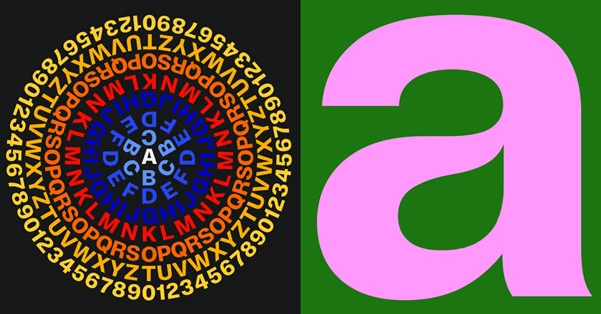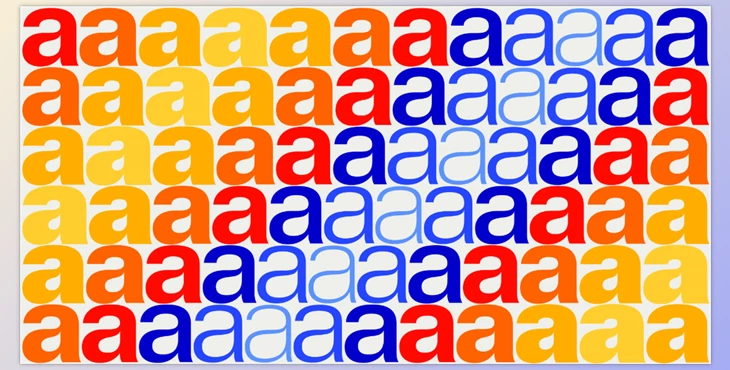
Hot Type - Exat Font Family:
The Exat typeface captures the essence of modern design with its bold shapes and sharp contours, drawing inspiration from the EXAT 51 artistic and architectural movements. EXAT 51 is a Croatian collective founded in 1951 with the goal of promoting abstract art and Total design. One of its leading members was Ivan Picelj, who actively participated in the New Tendencies movement during the 60s. Exat is, by far, the most complex type to develop to date since it combines a high level of freedom and accuracy for all sorts of uses. It brings together the need for a design and its efficient use as a typeface, whereby mastery is possible in the art of typographic design.